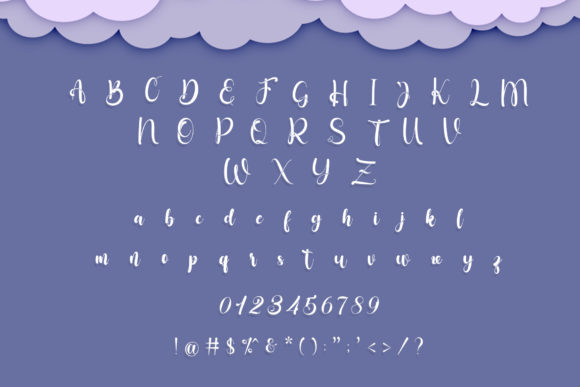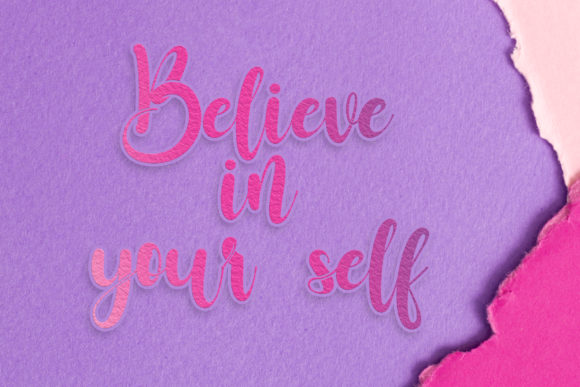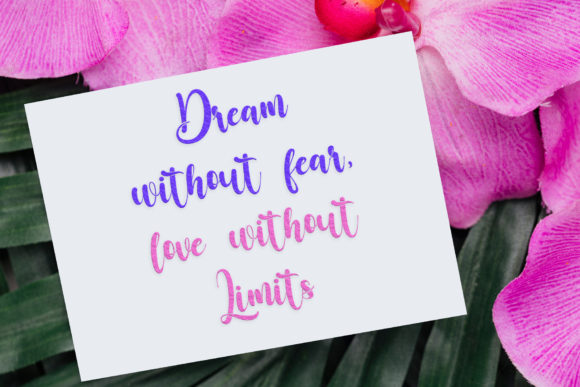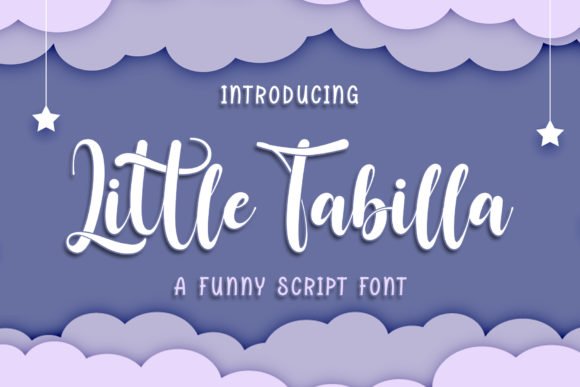
Introduction to Little Tabilla Font
Little Tabilla is a modern and cute handwritten font.
It has a playful feel that will turn any crafting idea into a true standout .
Why Choose Little Tabilla Font?
Little Tabilla Font offers exceptional quality and versatility, making it a valuable addition to your design toolkit. Whether you’re creating for personal projects or commercial use, Little Tabilla Font delivers professional results.